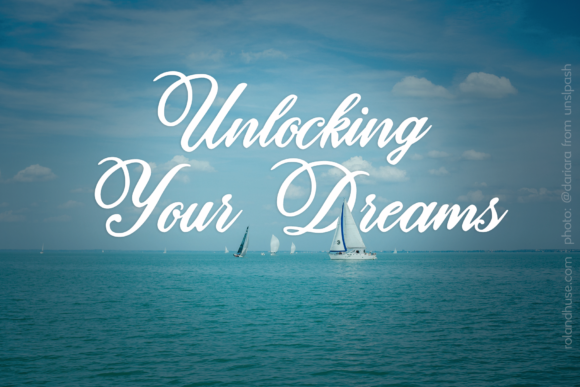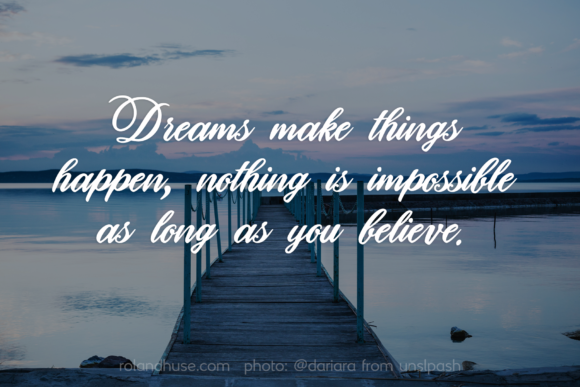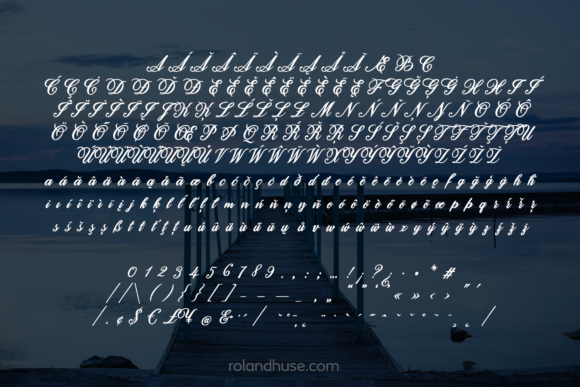
Unlocking Your Dreams Font
About Unlocking Your Dreams Font
Unlocking Your Dreams is a hand-drawn script with incredibly authentic swashes. Get inspired by its modern simplicity.